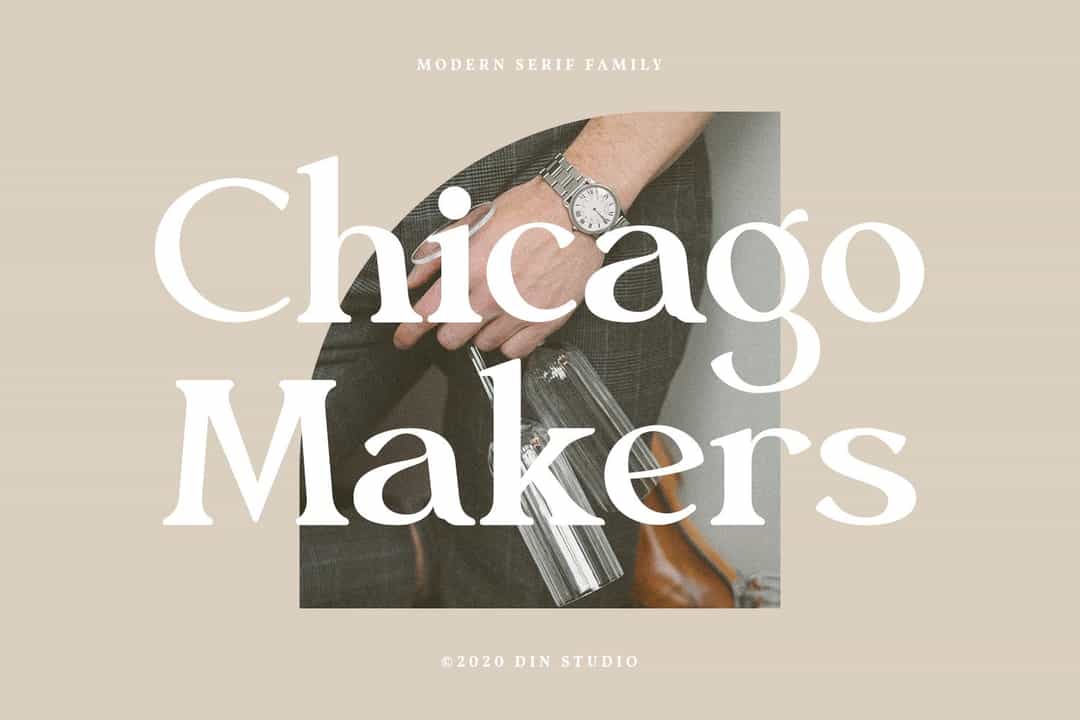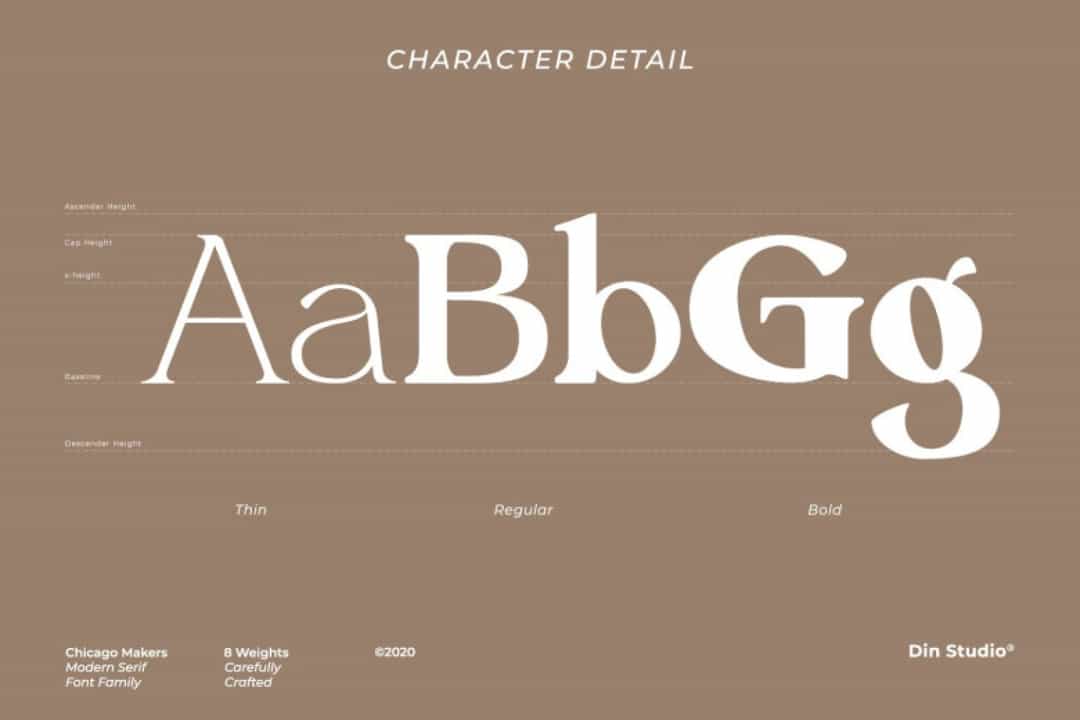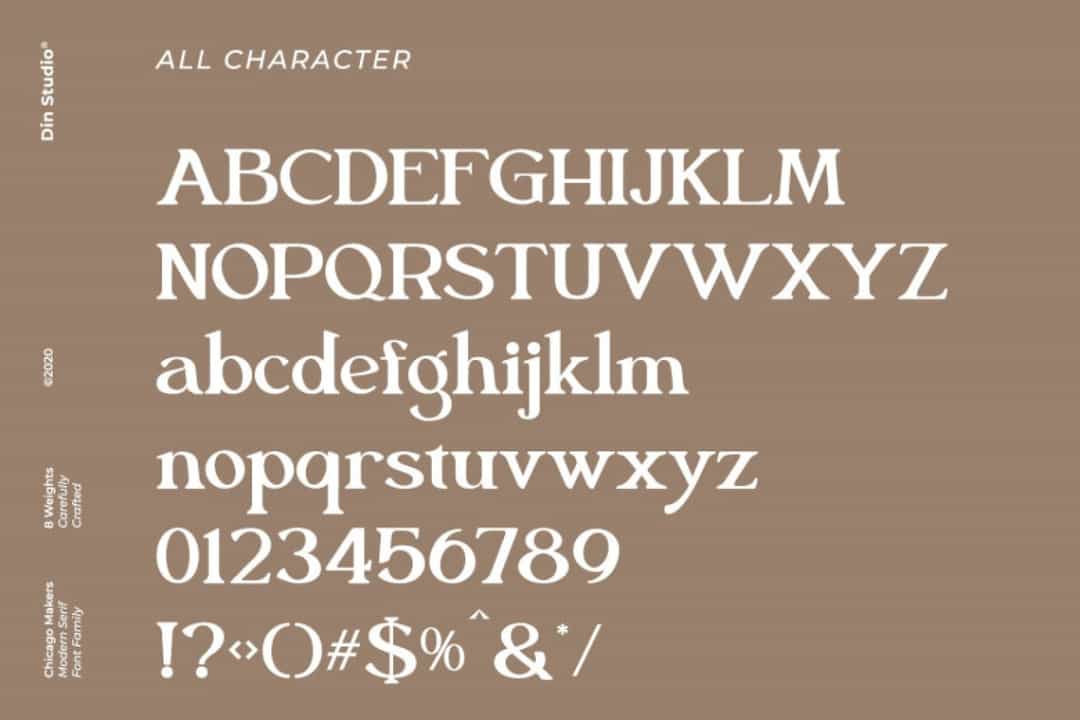
Discover Chicago Makers Font, part of the Serif collection—a versatile and unique font perfect for adding a personal touch to your projects. Download it for free and enjoy crafting designs with style, from invitations to social media posts. This font is available exclusively for personal use, giving you the freedom to create without limits. Unlock your creativity with Chicago Makers Font today!
Chicago Makers Serif Font was designed to add a stylish, modern aesthetic to whatever project or design you create. Ideal for headings, logos and business cards printed cards as well as packaging quotes website social media logos packaging website social media logos as well as many other uses!